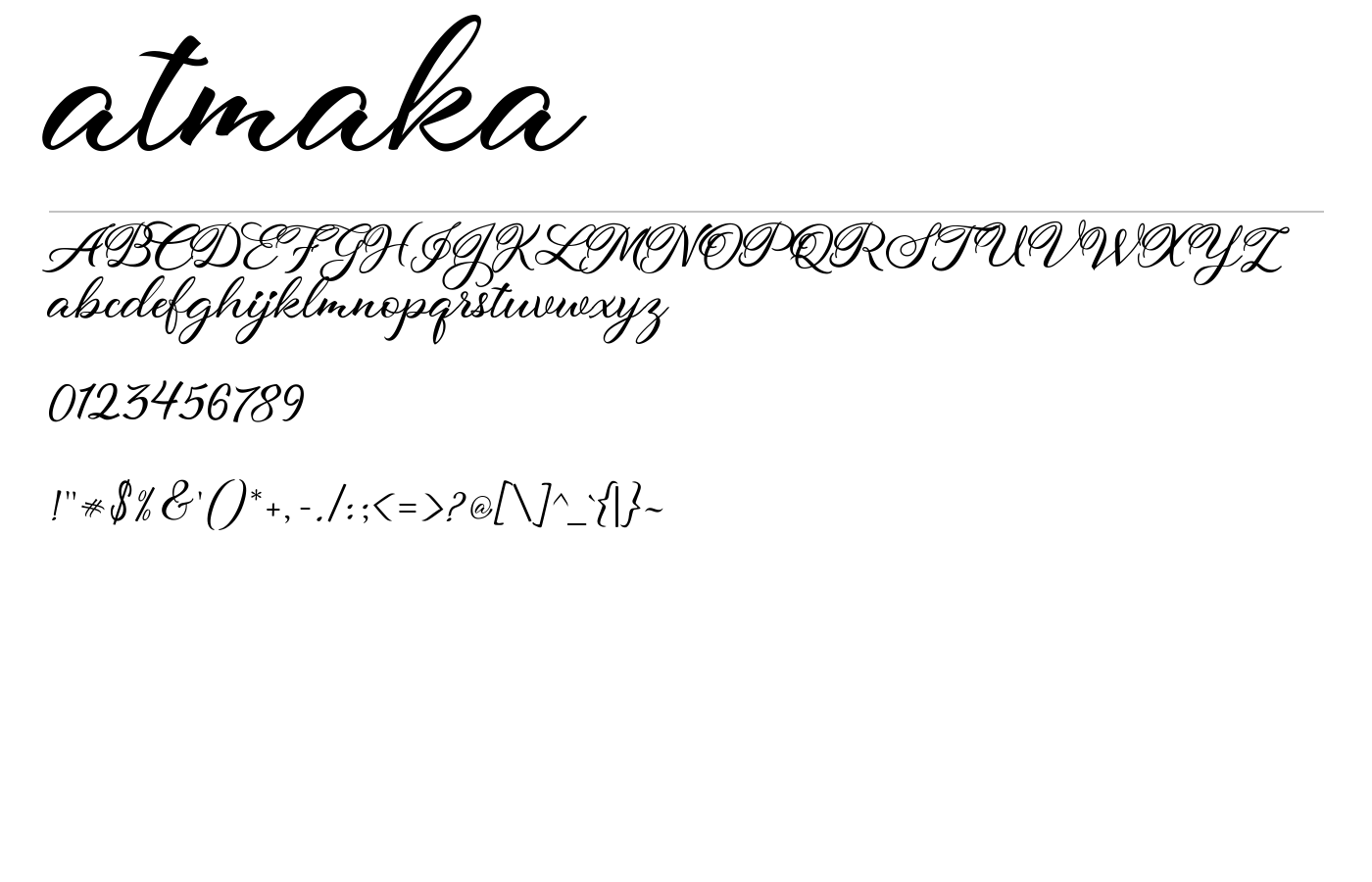
Atmaka is an elegant script font characterized by its smooth, flowing strokes and delicate, calligraphic style. With a slender weight, moderate contrast, and fluid letterforms, it conveys a refined, sophisticated personality perfect for wedding invitations, luxury branding, and stylish editorial design. Its graceful curves and readable structure make it ideal for projects seeking a classic yet modern handwritten feel.
atmaka Font
About atmaka Font
| Font family | atmaka Font |